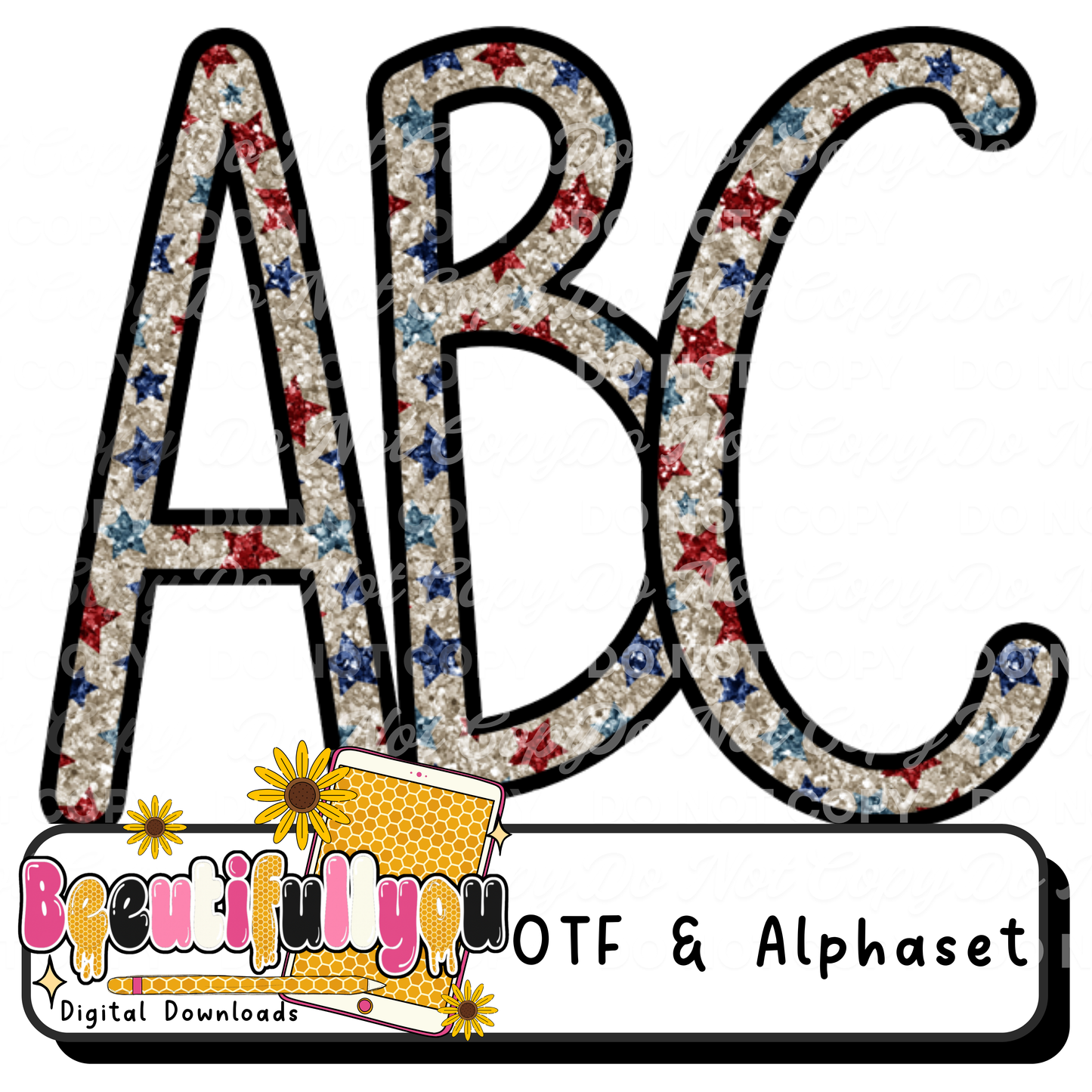
Patriotic Star Glitter Font OTF | Red White Blue Alphabet | 4th of July Font | Commercial Use Letter Set
🇺🇸 Create bold, eye-catching patriotic designs with this glitter star font!
This fun and festive font features a textured glitter-style fill with red, white, and blue stars — perfect for all your 4th of July and summer designs ✨
Designed for creators who want to make custom words, names, and phrases that stand out 🔥
✔ Trendy glitter + patriotic combo